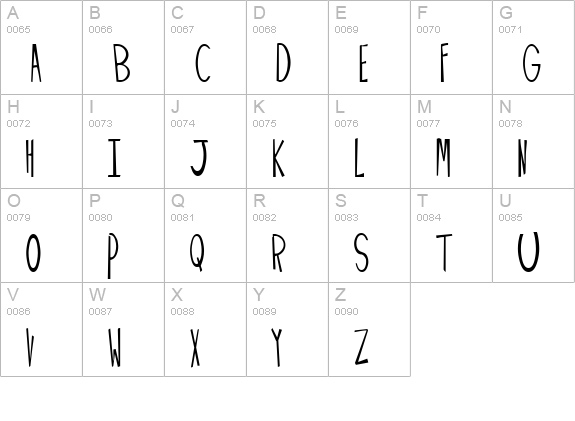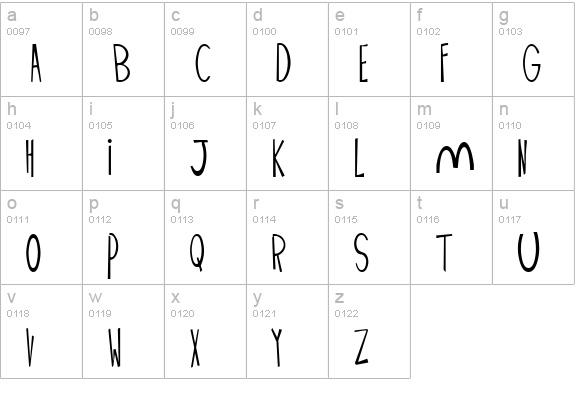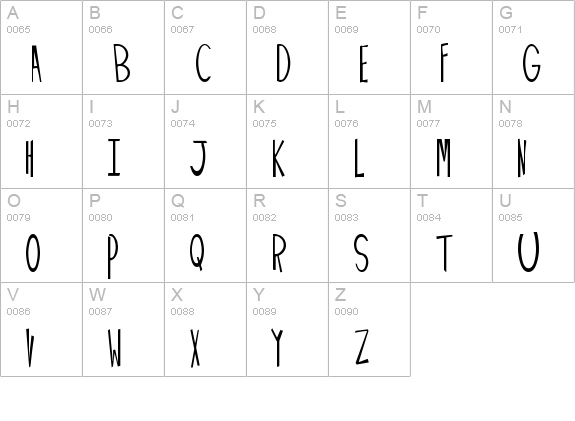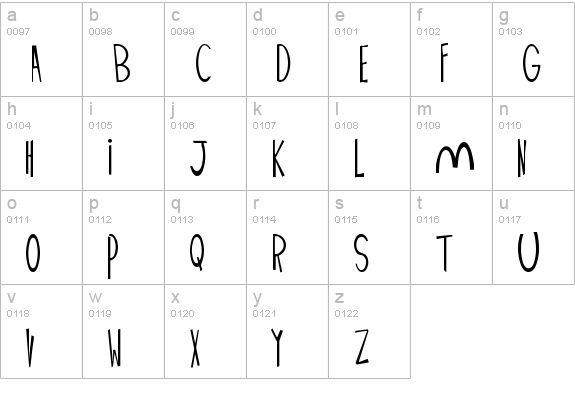
Palimpus Font Details
Introducing Palimpus, a beautifully crafted font that combines elegance with a touch of playfulness. This versatile typeface is perfect for a wide range of design projects, from branding and packaging to web design and advertising. With its clean lines and balanced proportions, Palimpus exudes a sense of sophistication, making it ideal for both professional and creative endeavors. But what sets Palimpus apart from other fonts is its unique charm. The subtle curves and gentle strokes give the letters a sense of warmth and approachability, making it a delightful choice for projects seeking to evoke a friendly and inviting atmosphere. One of the best parts about Palimpus is that it is free. Yes, you heard that right! This incredible font is freely available to download at FontsMarket.com. So whether you're a seasoned designer looking to expand your font collection or a beginner just starting out, Palimpus is the perfect addition to your toolkit. With Palimpus, you'll have unlimited creative possibilities at your fingertips. Experiment with various letterforms, mix and match different styles, and let your imagination run wild. The extensive character set includes all the standard Latin alphabet letters, as well as numbers, punctuation marks, and special characters, ensuring that you have all the tools you need to bring your vision to life. The clean and well-defined outlines of Palimpus make it highly legible, even at smaller sizes, ensuring that your message is always clear and easy to read. Whether you're designing a logo, creating a headline, or crafting a body of text, Palimpus will deliver exceptional results every time. So why wait? Download Palimpus now, and unlock the true potential of your design projects. With its timeless elegance, playful charm, and the fact that it is free, Palimpus is a font that you simply can't afford to miss. Head over to FontsMarket.com and get your hands on this incredible font today!